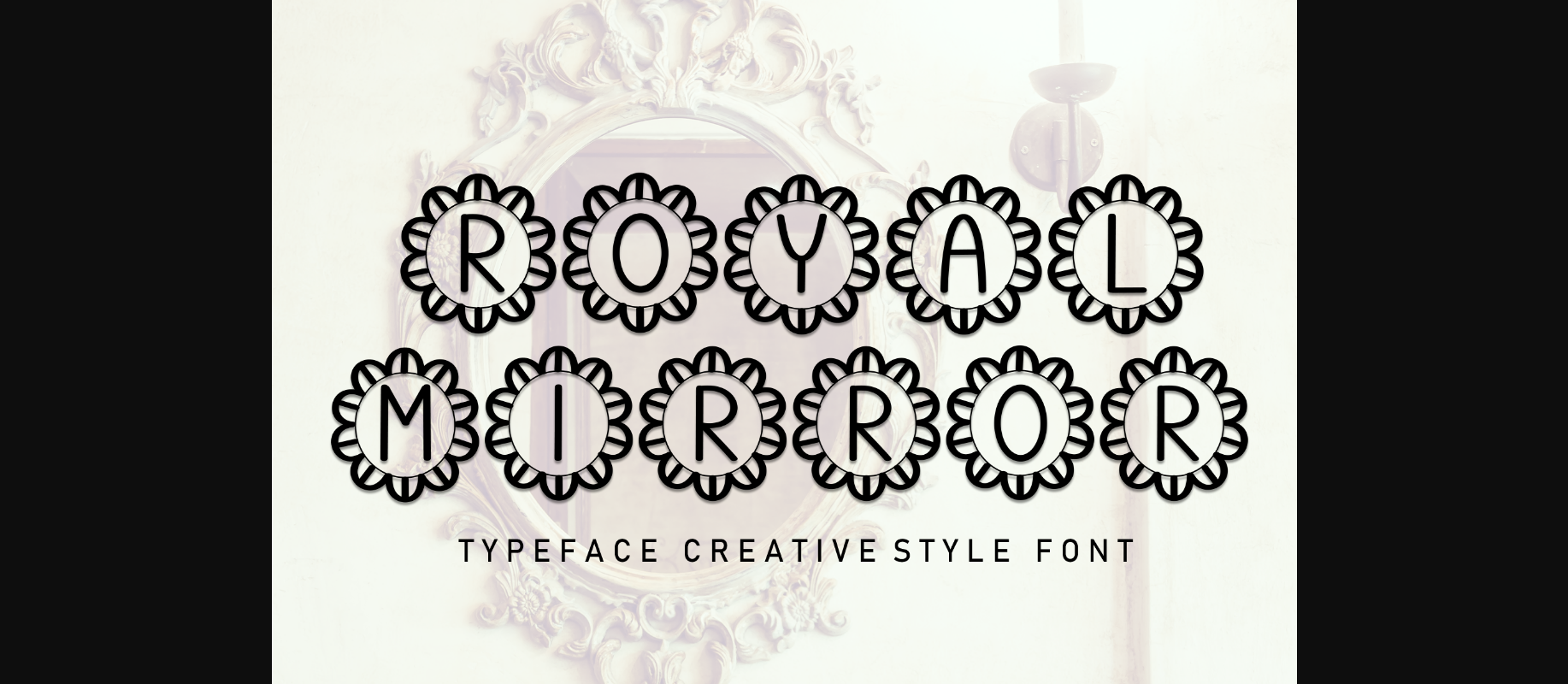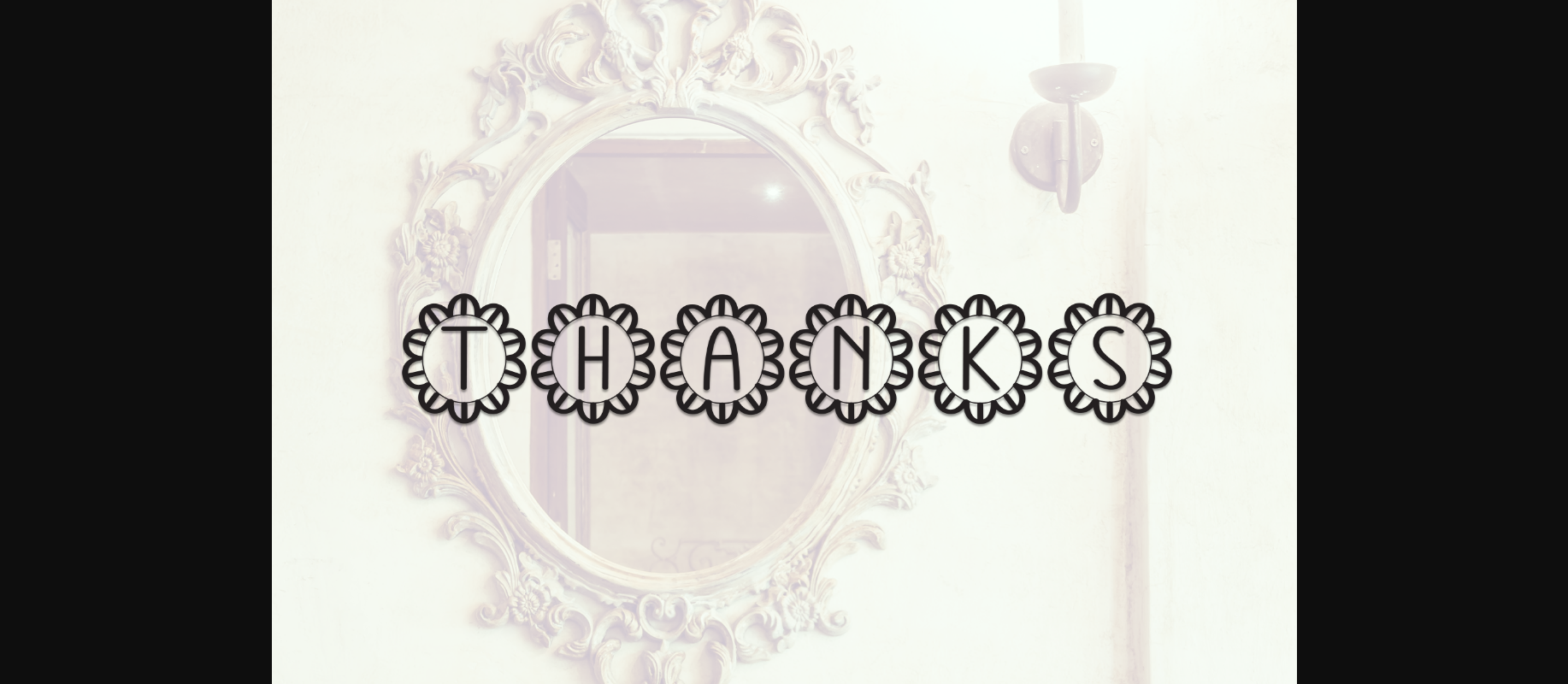
About Royal Mirror Font
With this font, your messages will become really super cute. It’s an elegant and feminine typeface suitable for all kinds of headlines and decorative purposes. It will be a perfect choice for all kinds of wedding stationery, invitations, flower shops, packaging, social media posts, and any spring-inspired designs!